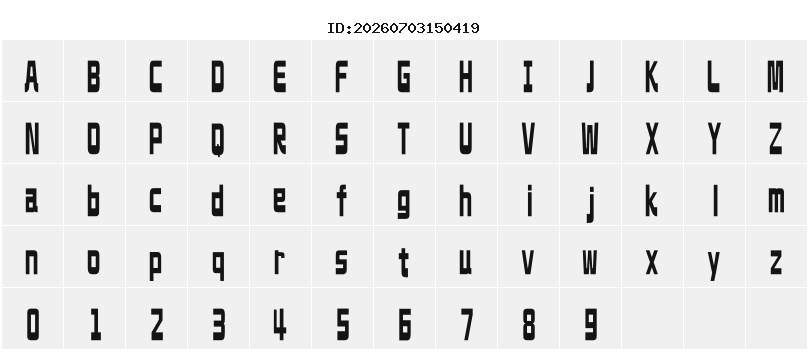
179-上首朋克体 Preview
• Font Name: 179-上首朋克体
• Full Font Name: 179-上首朋克体
• Version: Version 4.00 December 23, 2023
• Manufacturer: 上首造字
About 179-上首朋克体.ttf
179-上首朋克体.ttf is a modern, elegant sans-serif font designed for ultimate readability and visual harmony. Perfect for branding, headlines, web design, and print materials.